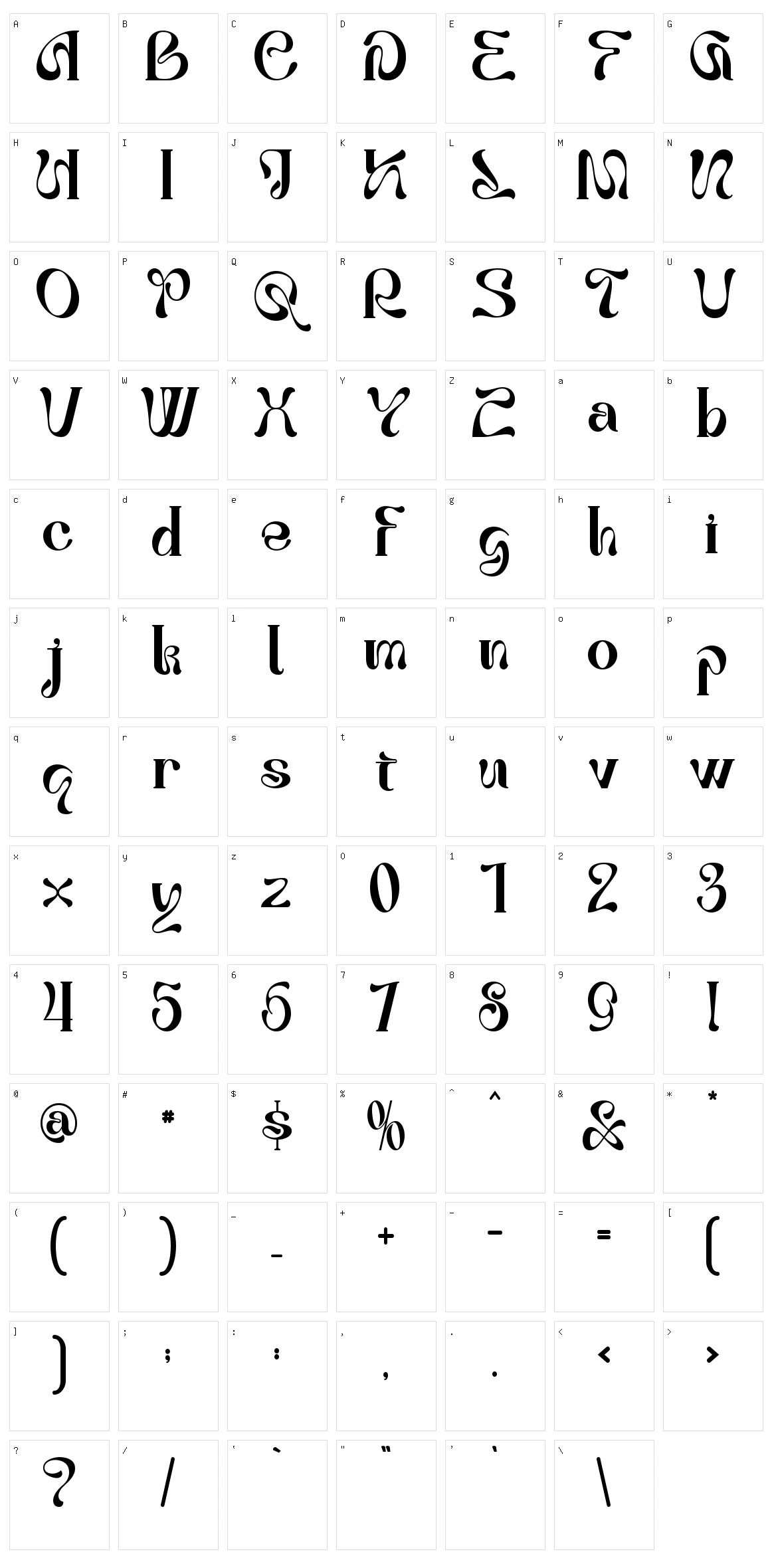
The free font Great Warrior is carefully designed by Letterara, showcasing a thoughtful balance of creativity and usability and falls under the Groovy font style. When you download the ZIP file, it contains only 234.3 KB of font files, making it lightweight and quick to download. Please review the license details below to understand permitted usage and distribution rights. If license information is not available, we recommend using this font for personal projects only or contacting the author directly for commercial usage permissions.